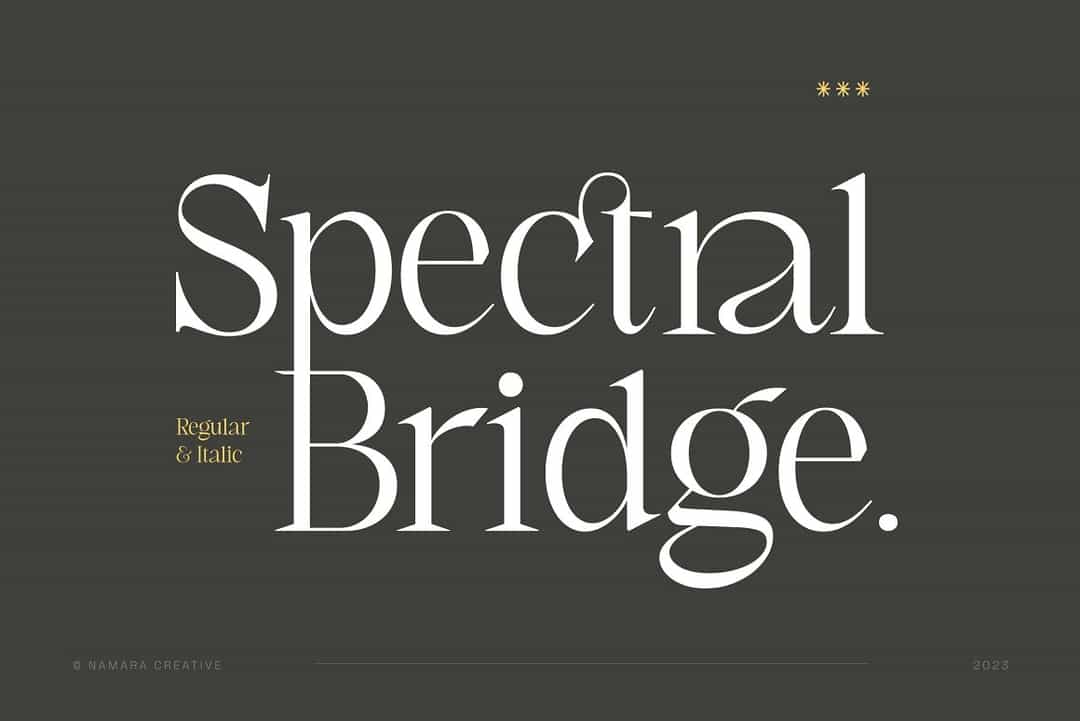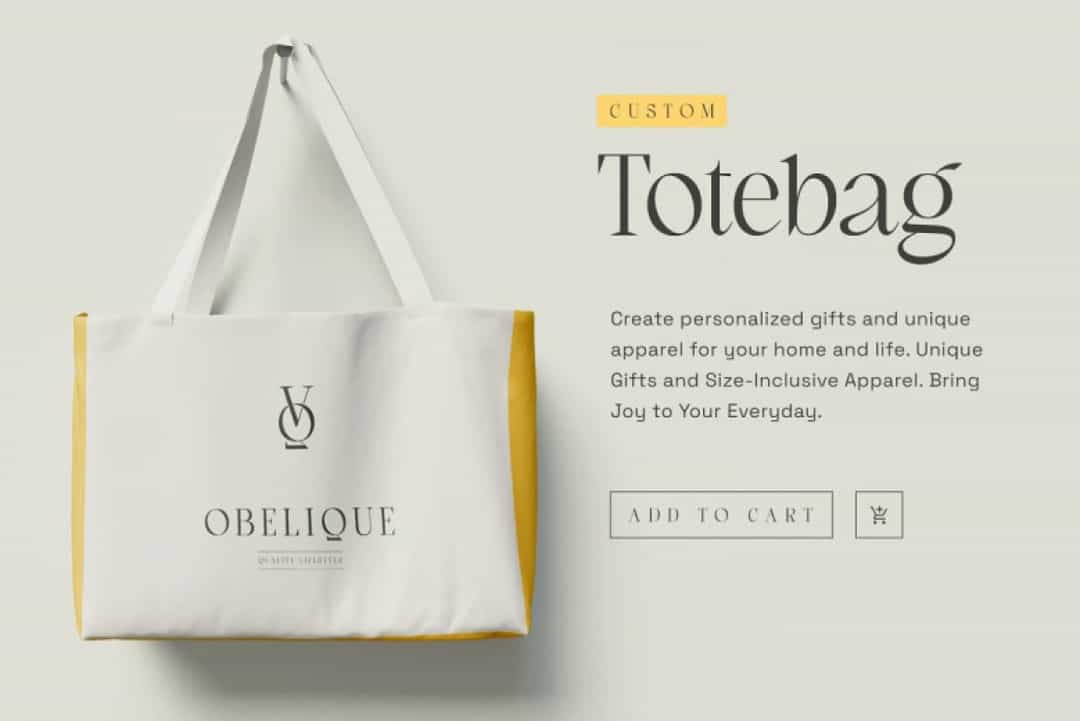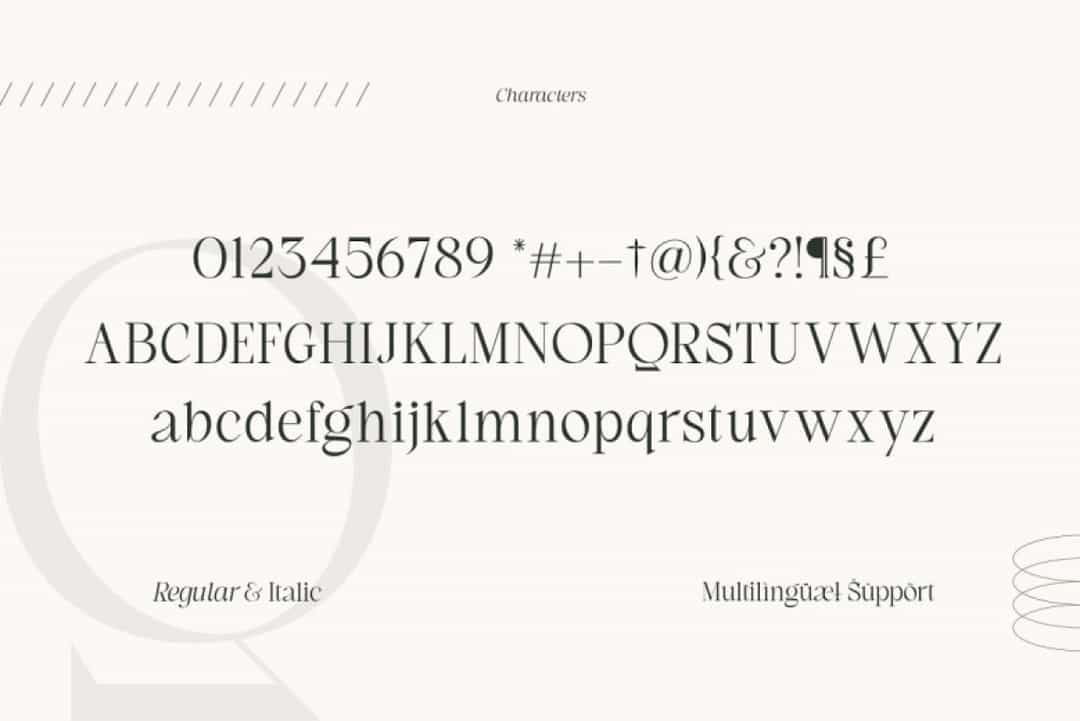
The Spectral Bridge is an elegant serif that is designed to exude timeless elegance and lavish appeals. Available in both Regular and Italic types, you are free to mix styles, alternates and Ligatures without restrictions – creating a typeface suitable for projects ranging from branding and lettering quotes, printing designs and beyond.